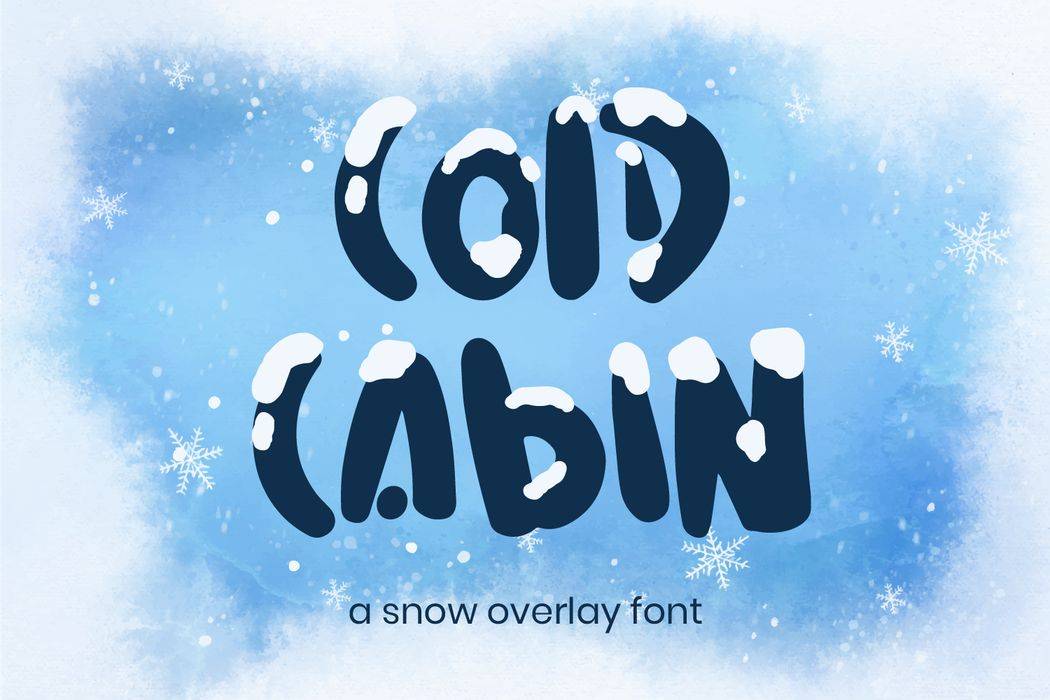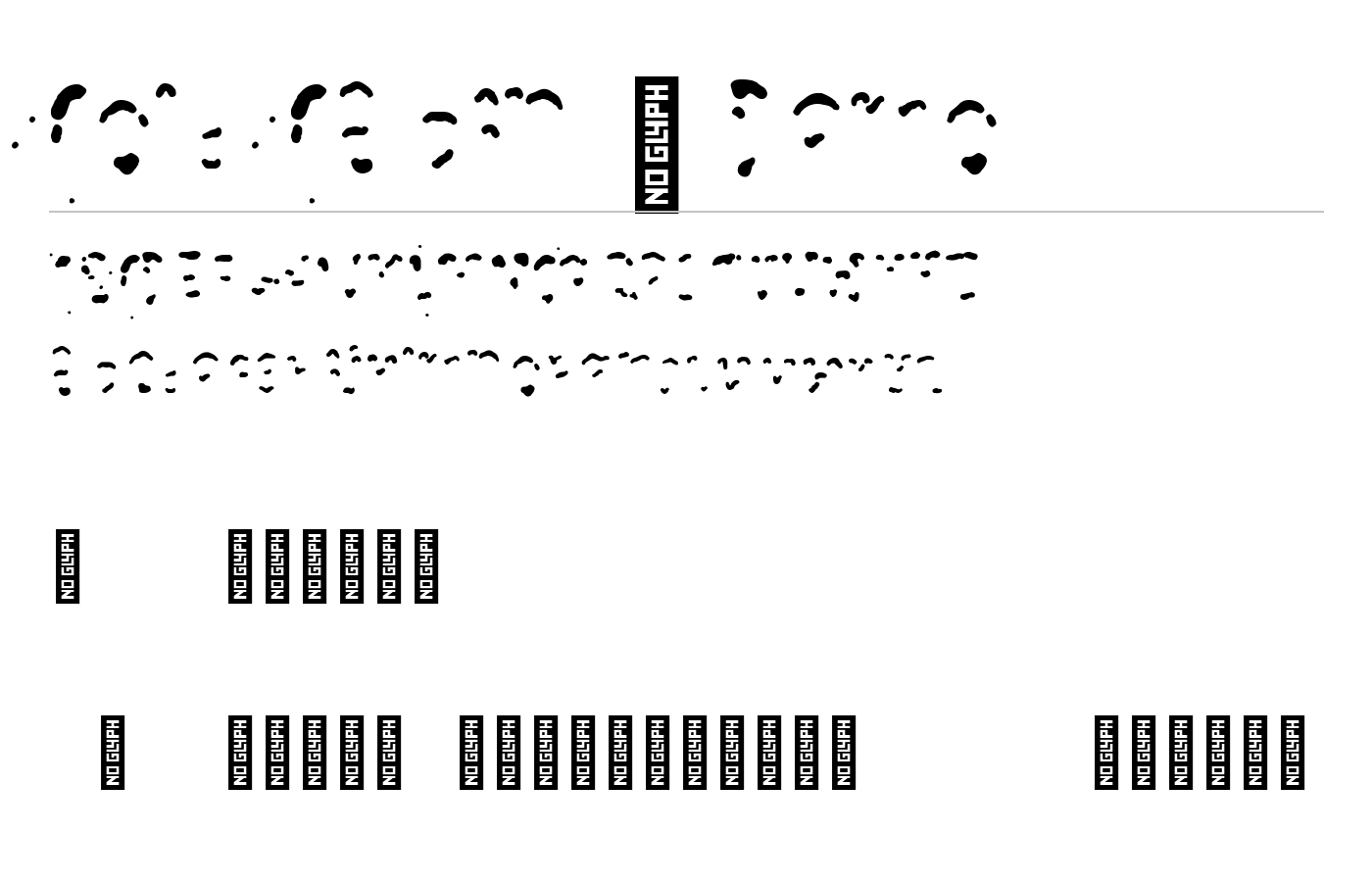
Cold Cabin is a distinctive sans serif font featuring a bold, condensed style with unique, rounded strokes that evoke a playful yet rugged character. Its strong, compact letterforms with minimal contrast and smooth curves make it ideal for attention-grabbing headlines and branding that seeks a modern, adventurous vibe. This font works best in logos, posters, and outdoor-themed designs where a bold and approachable presence is needed.
Cold Cabin Font
About Cold Cabin Font